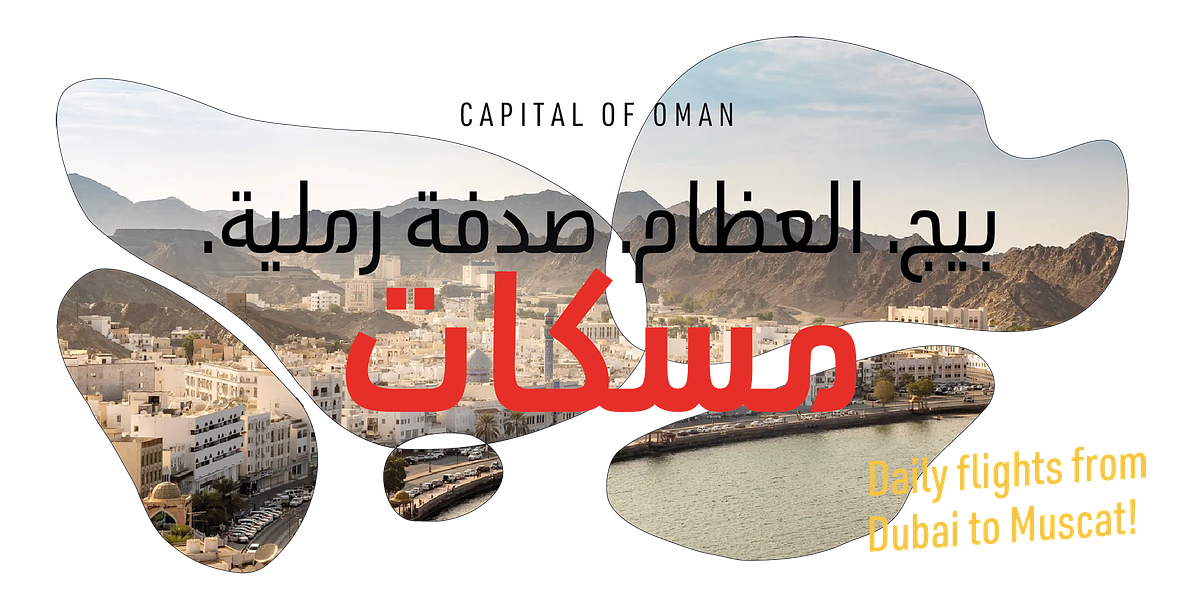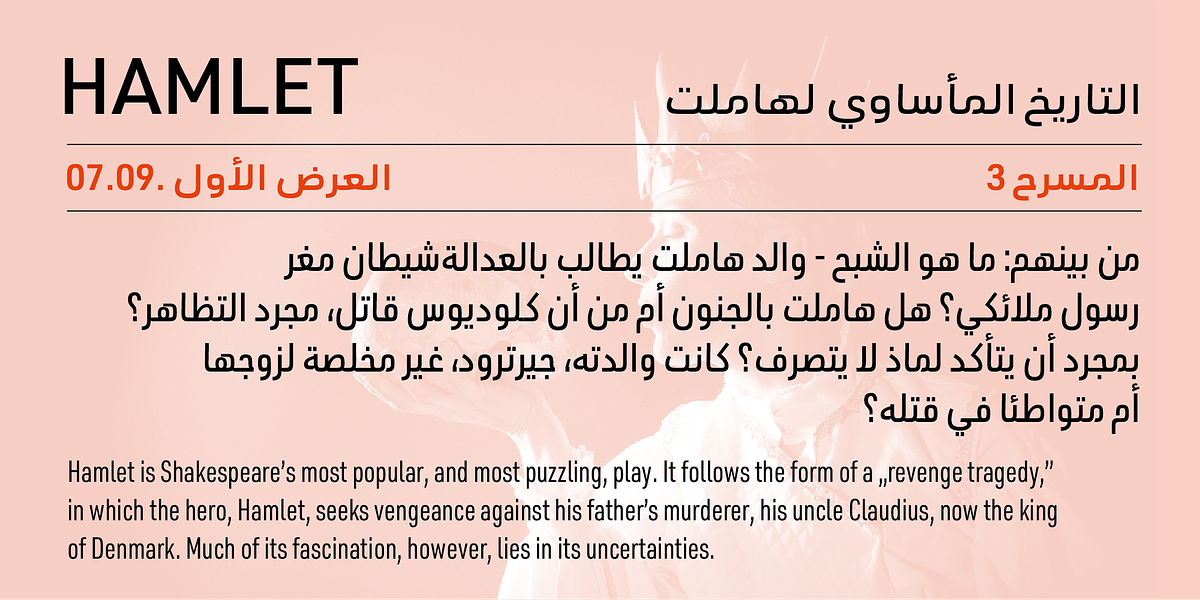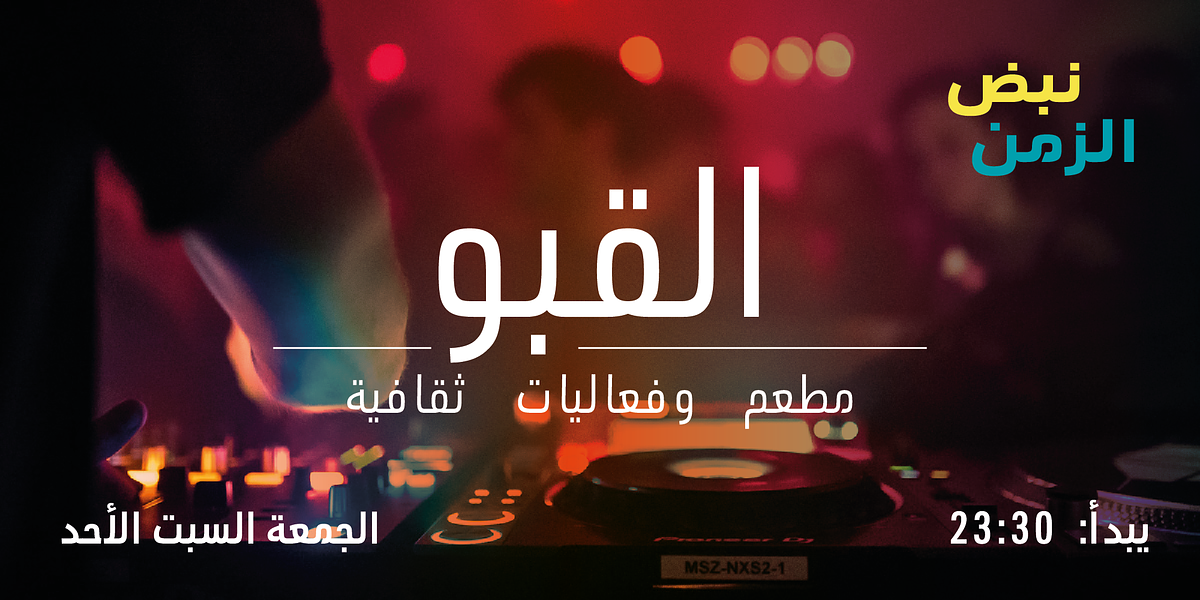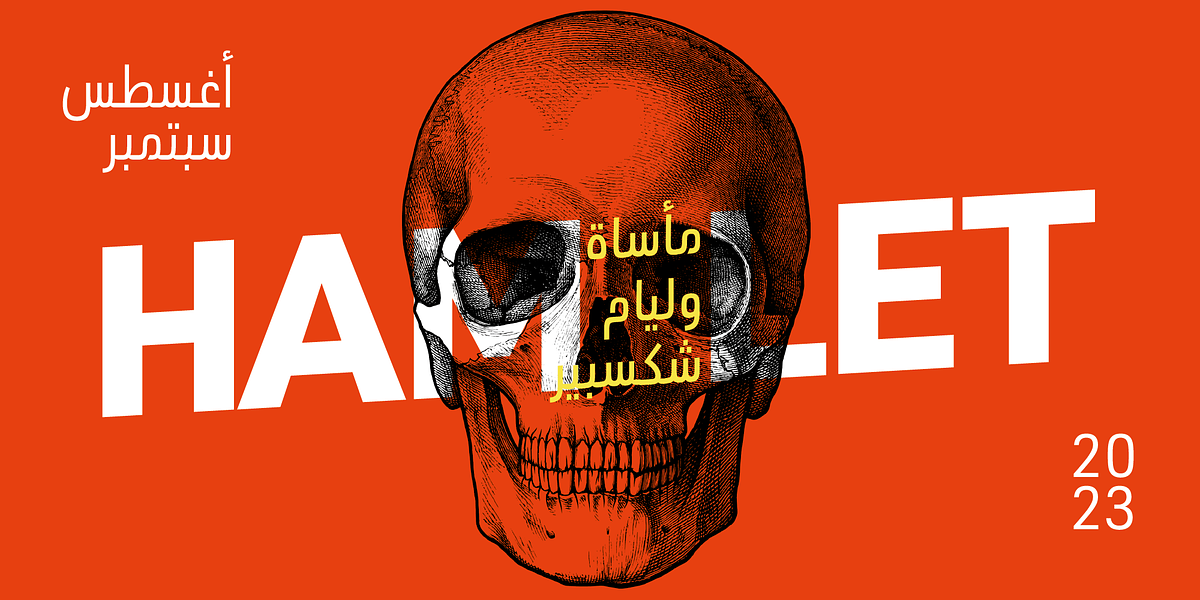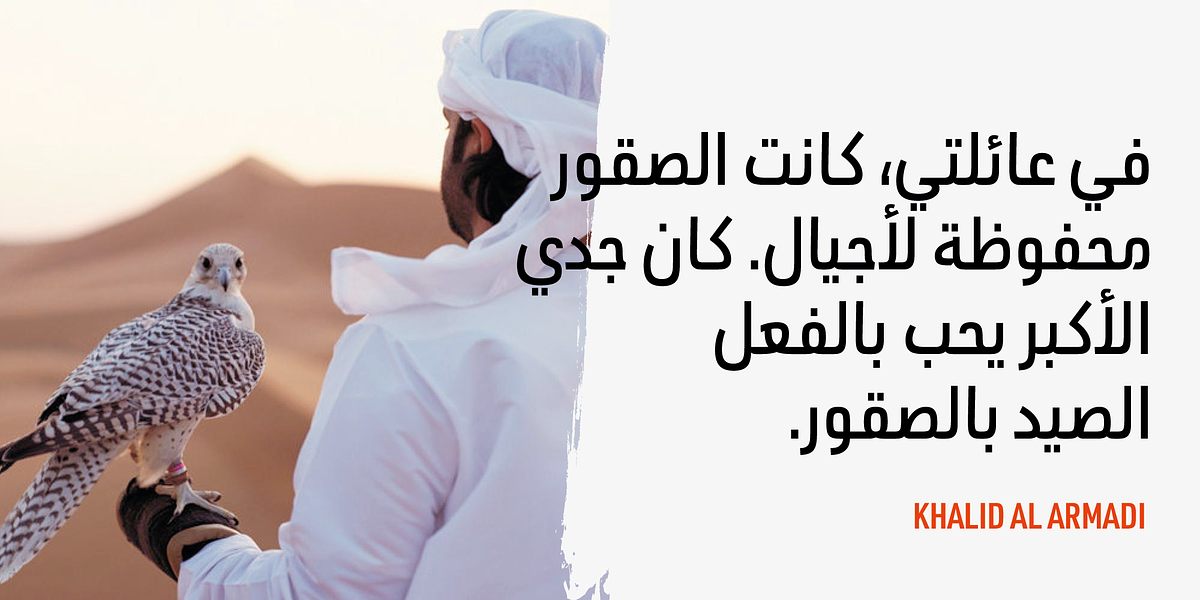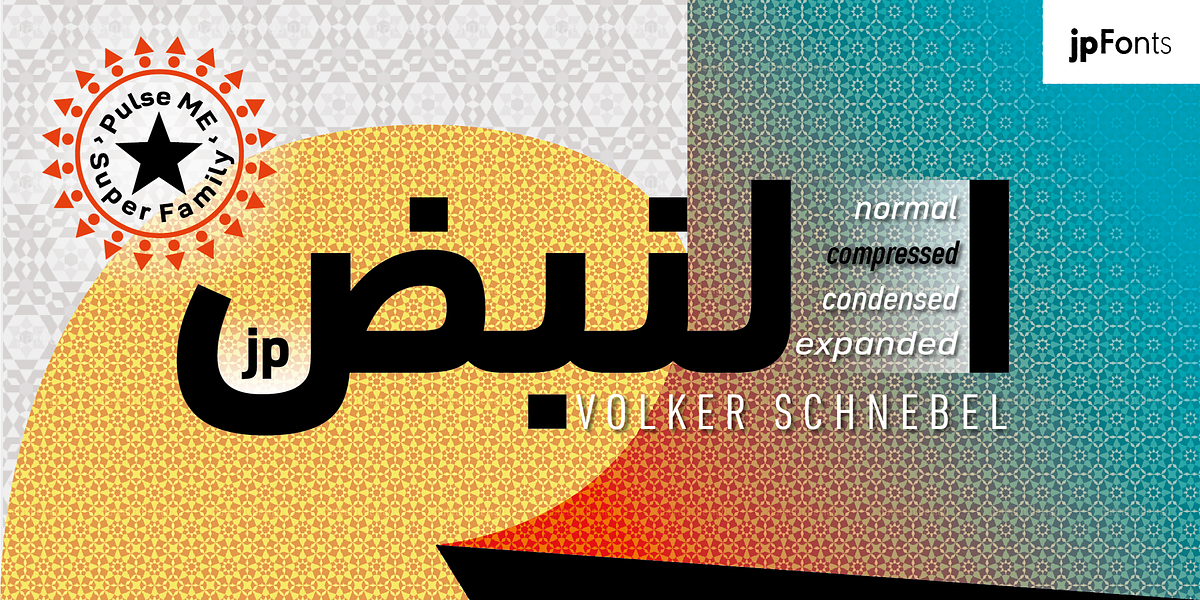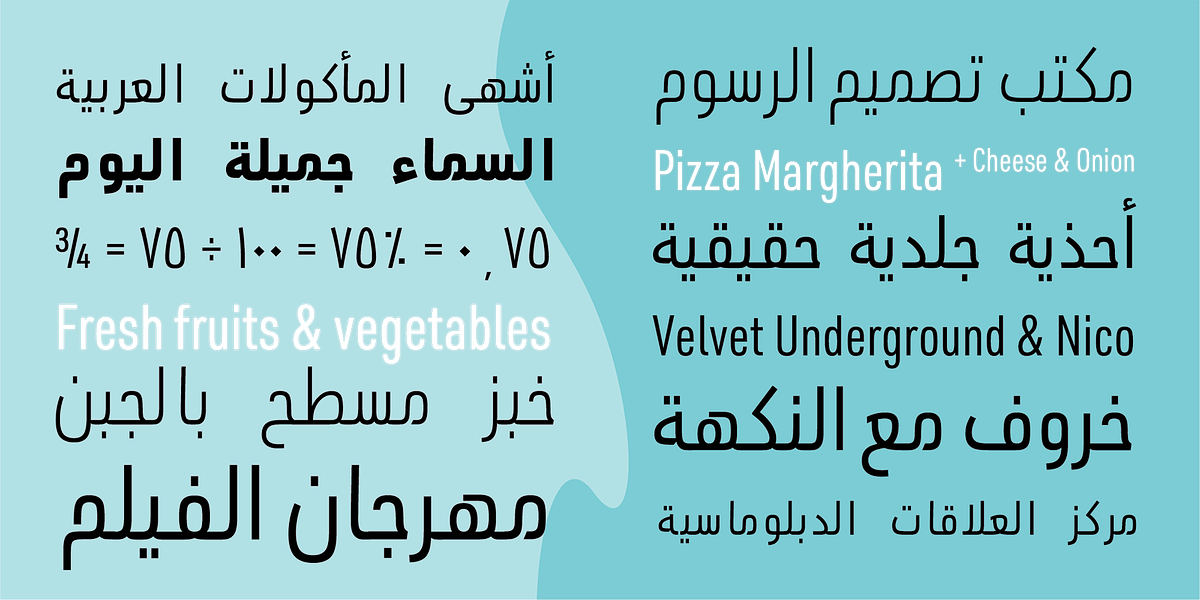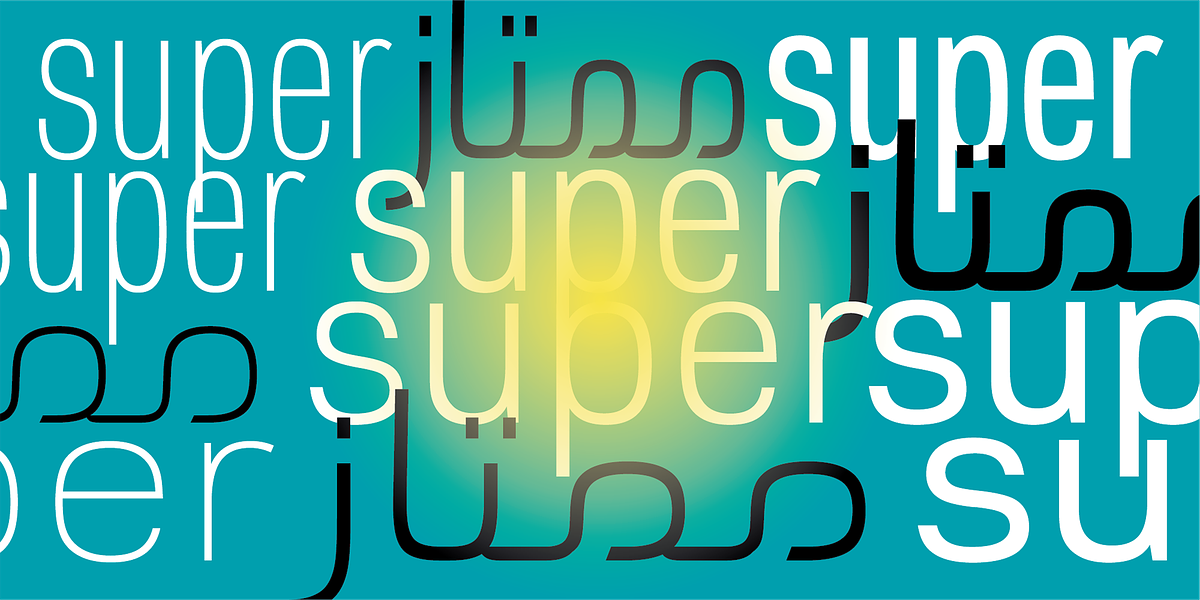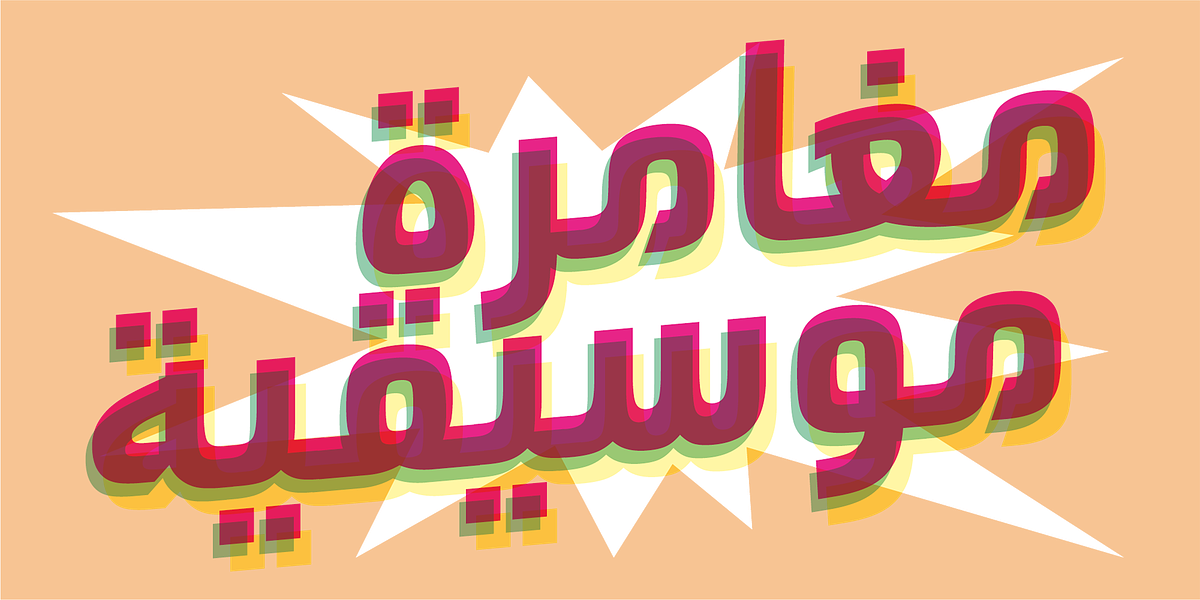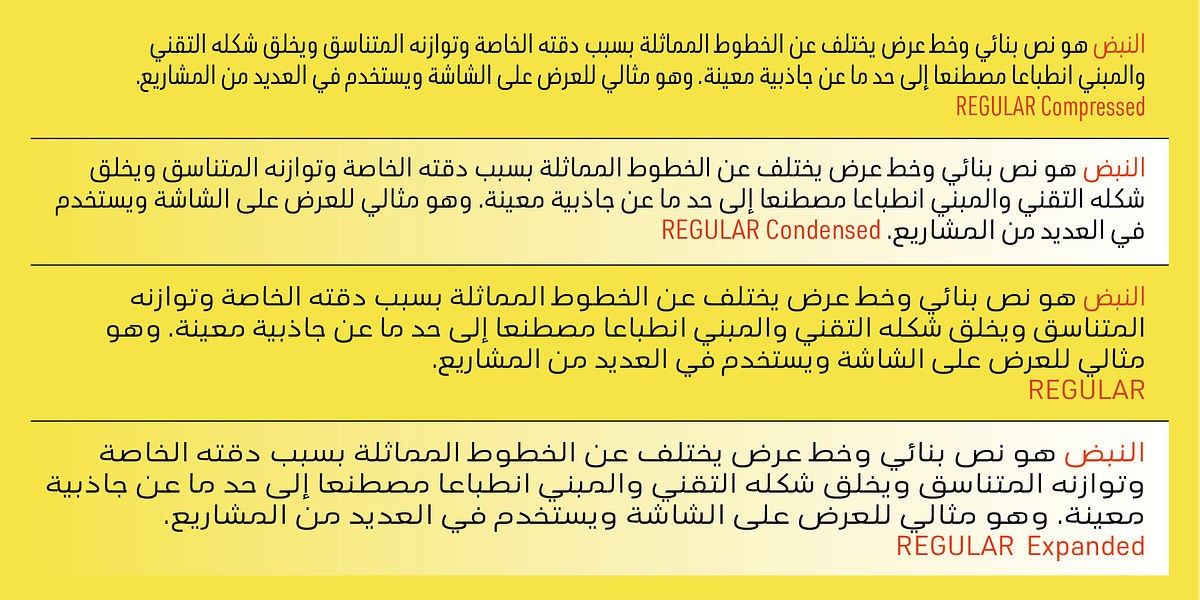
Pulse JP ME Compressed
Pulse JP ME is a neo-grotesque sans serif font characterized by its sharpness and balanced design. Its constructivist approach results in a somewhat artificial aesthetic that is particularly appealing for display purposes. As a superfamily, it offers a wide range of weights and widths, allowing for versatile typographic applications. Notably, Pulse JP ME supports a comprehensive character set encompassing Latin, Arabic, and Hebrew languages. The font's meticulous craftsmanship ensures harmonious proportions and high legibility across all variants. The availability of a variable font further enhances its flexibility, enabling continuous fine-tuning between different styles.